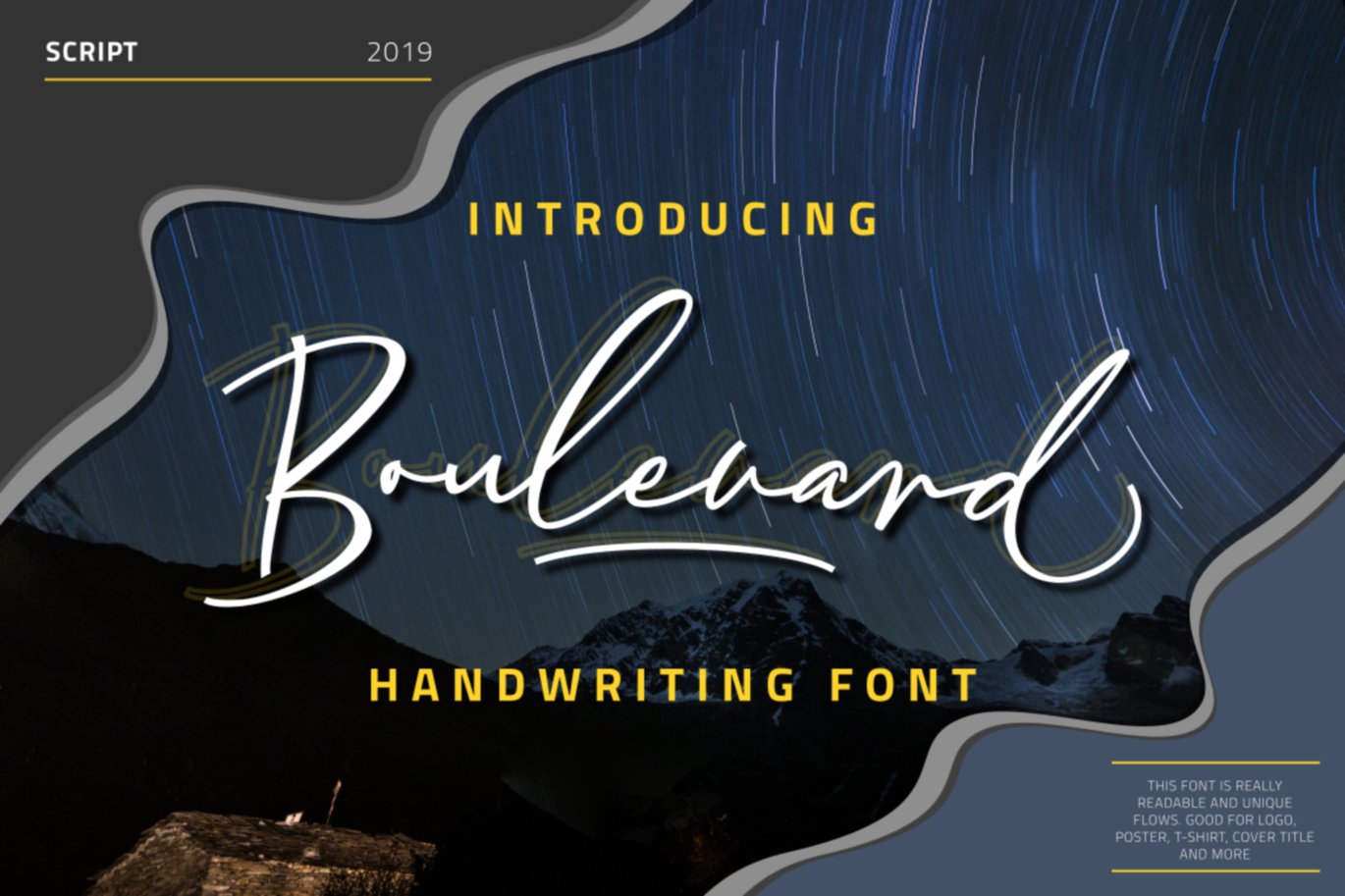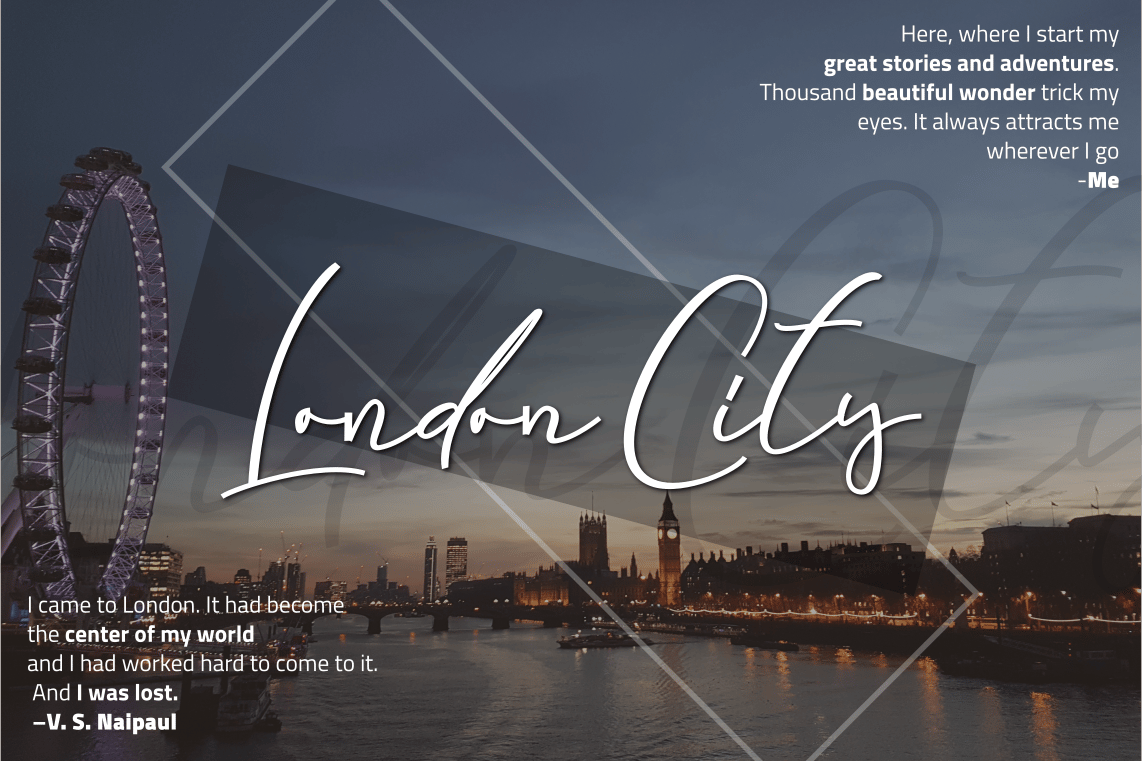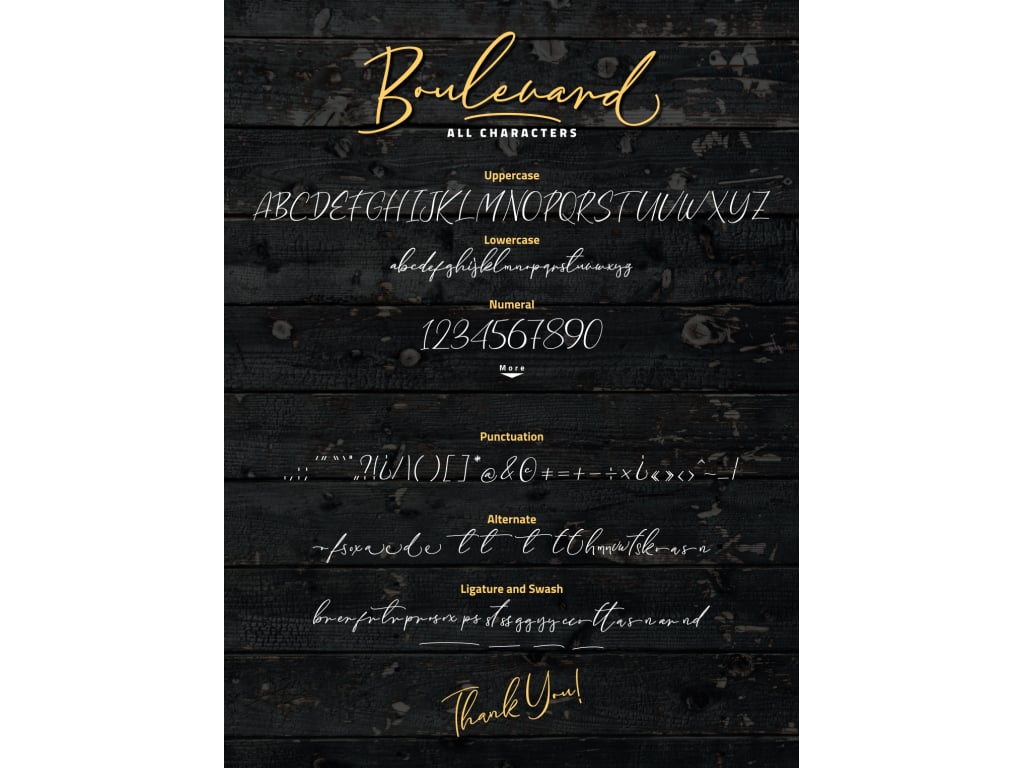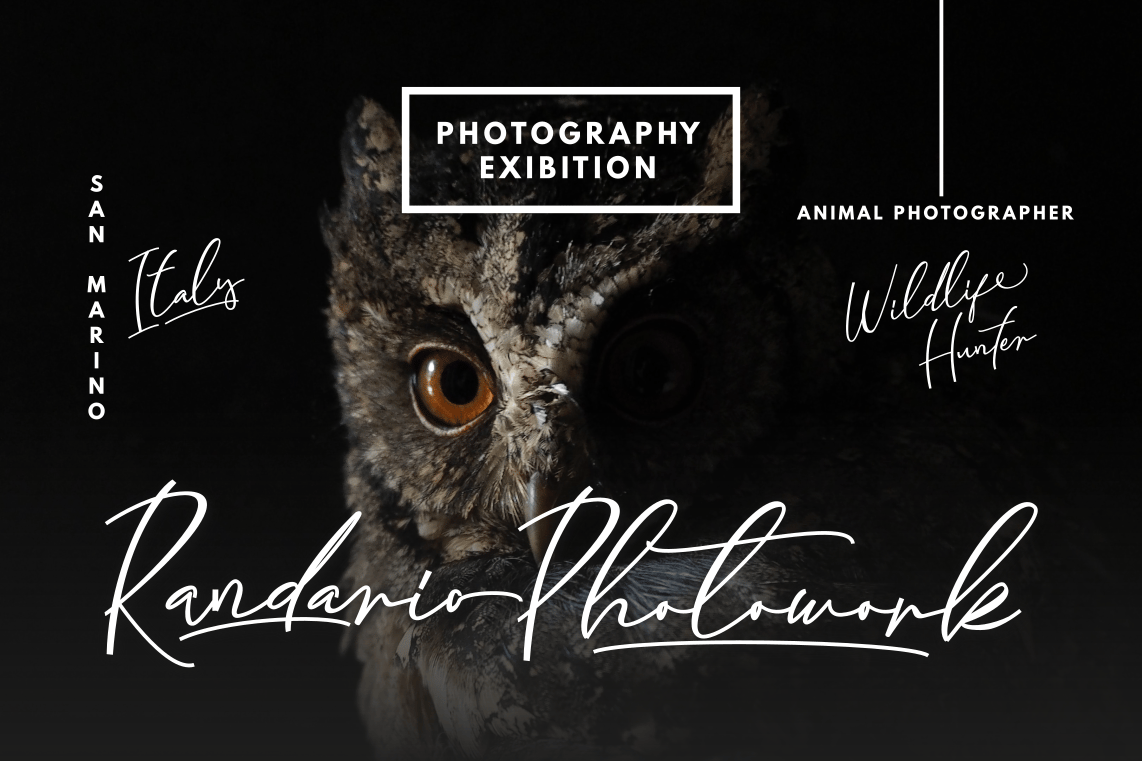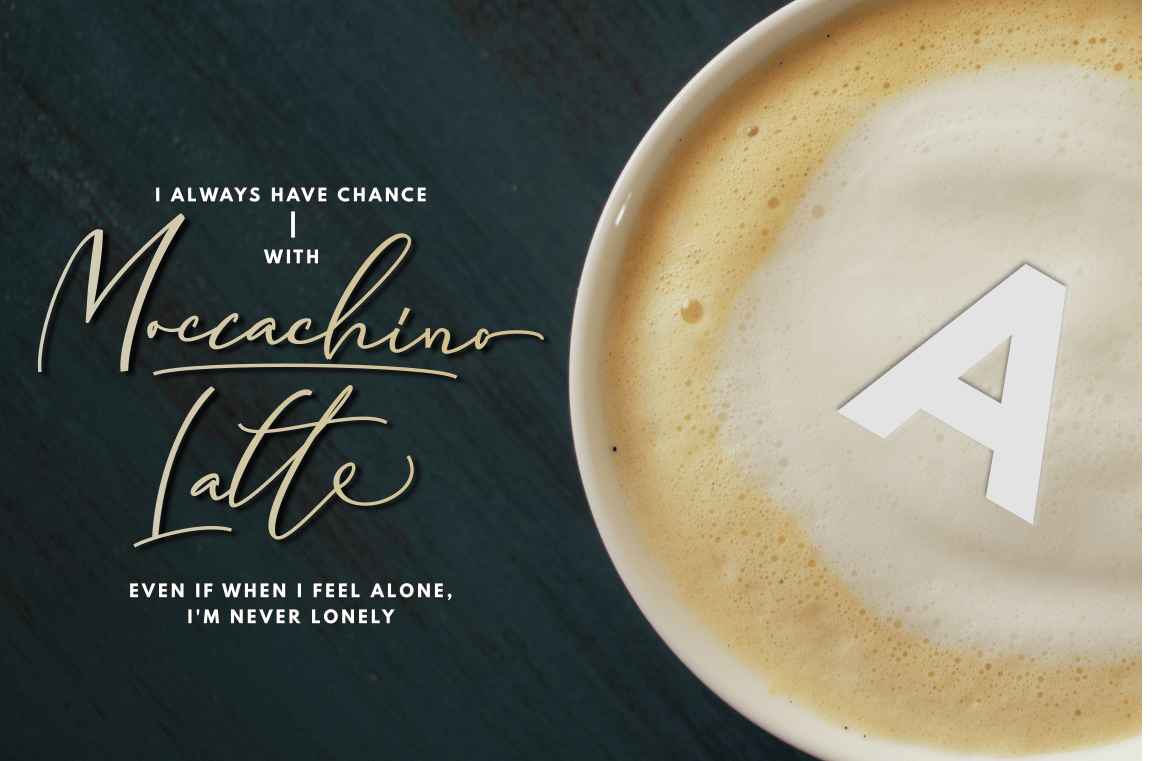
Boulevard – Handwriting Font
Boulevard is perfect to use for Logotype, Letterhead, Poster, Apparel Design, Label and etc.
The alternative characters were divided into several features such as Stylistic Alternates and Ligature.